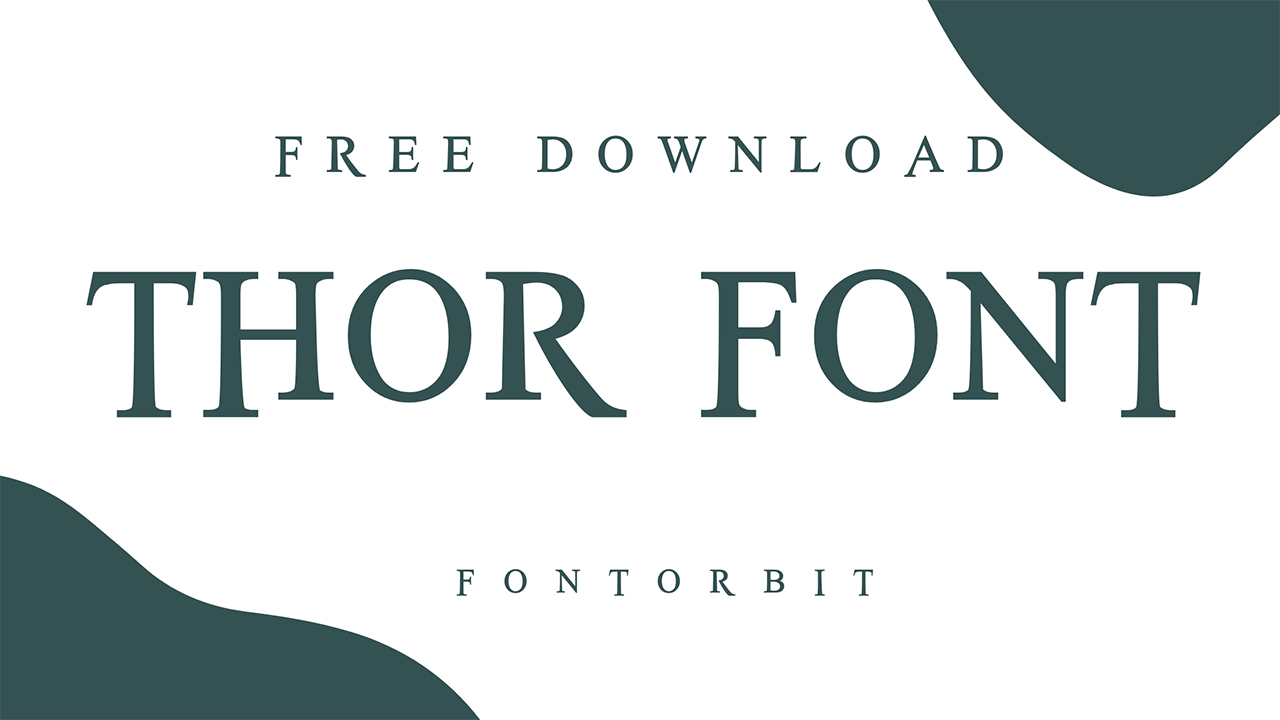
Meet Thor Font, a striking typeface inspired by the dynamic and powerful style of the “Thor” film title. Designed using the Dameron Regular and Ragnarok Serif fonts, this typeface captures the bold and heroic essence of the Marvel universe.
- Film Titles
- Merchandise
- Event Graphics
The Thor Font Found In Use
Thor Font is frequently used in designs related to superhero themes and cinematic branding. It embodies the bold and dramatic style of the “Thor” film series, making it a popular choice for fan art, promotional materials, and themed events.
Thor Font brings a powerful, heroic edge to any design. Ideal for film titles, logos, and themed projects, this typeface captures the dynamic and epic feel of the “Thor” brand. Perfect for adding a bold and dramatic touch to your work.
Thor Font combines bold, heroic elements with cinematic flair, while similar fonts may lack this specific epic and dynamic style. Use Thor Font for strong, impactful designs and ensure readability by choosing appropriate sizes and testing print quality.
For print media, Thor Font is best used at sizes 24pt or larger for clarity and impact.
The font size for Thor Font can vary, but it is often used in larger sizes for emphasis, typically 24pt and above.